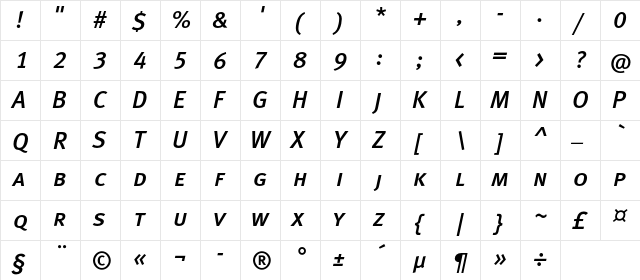
MetaMediumCapsLFC Italic
Design Context for MetaMediumCapsLFC Typeface
MetaMediumCapsLFC takes a measured approach to typography — its balanced proportions and neutral character make it a reliable workhorse for both digital and print work. The slanted form adds forward momentum and visual energy.